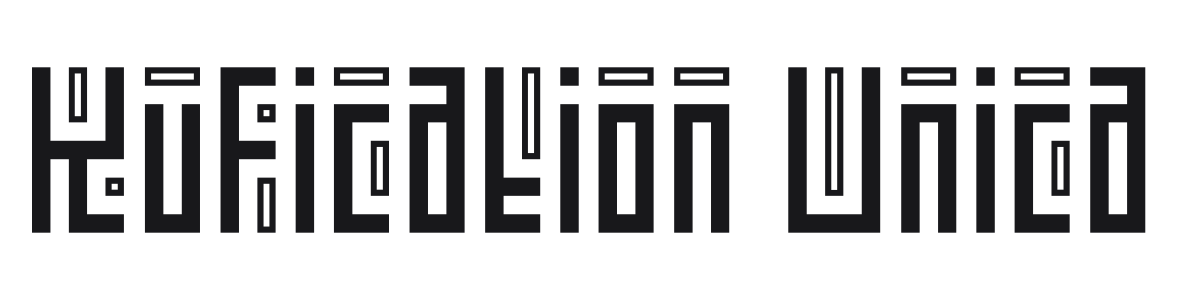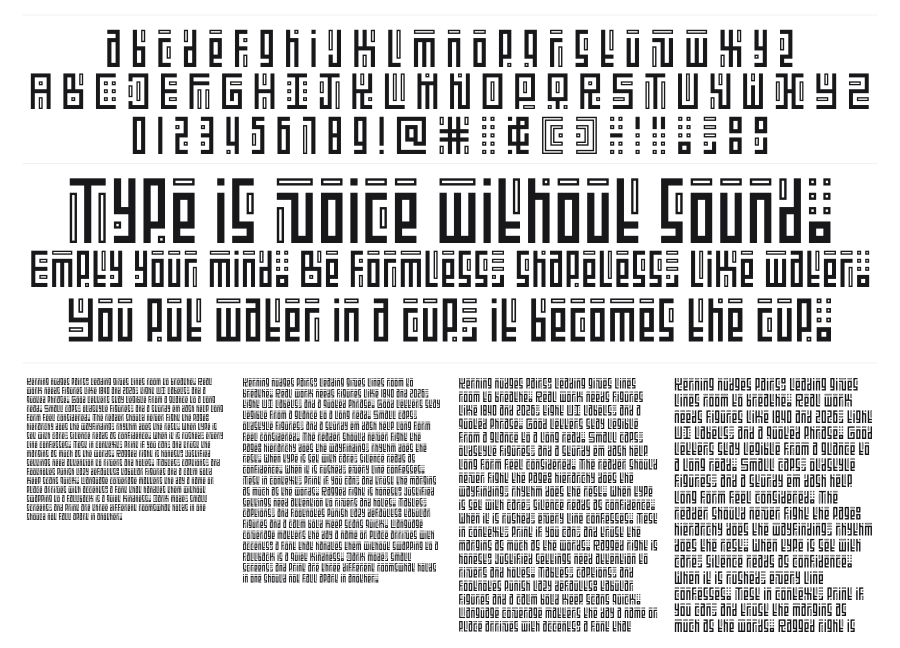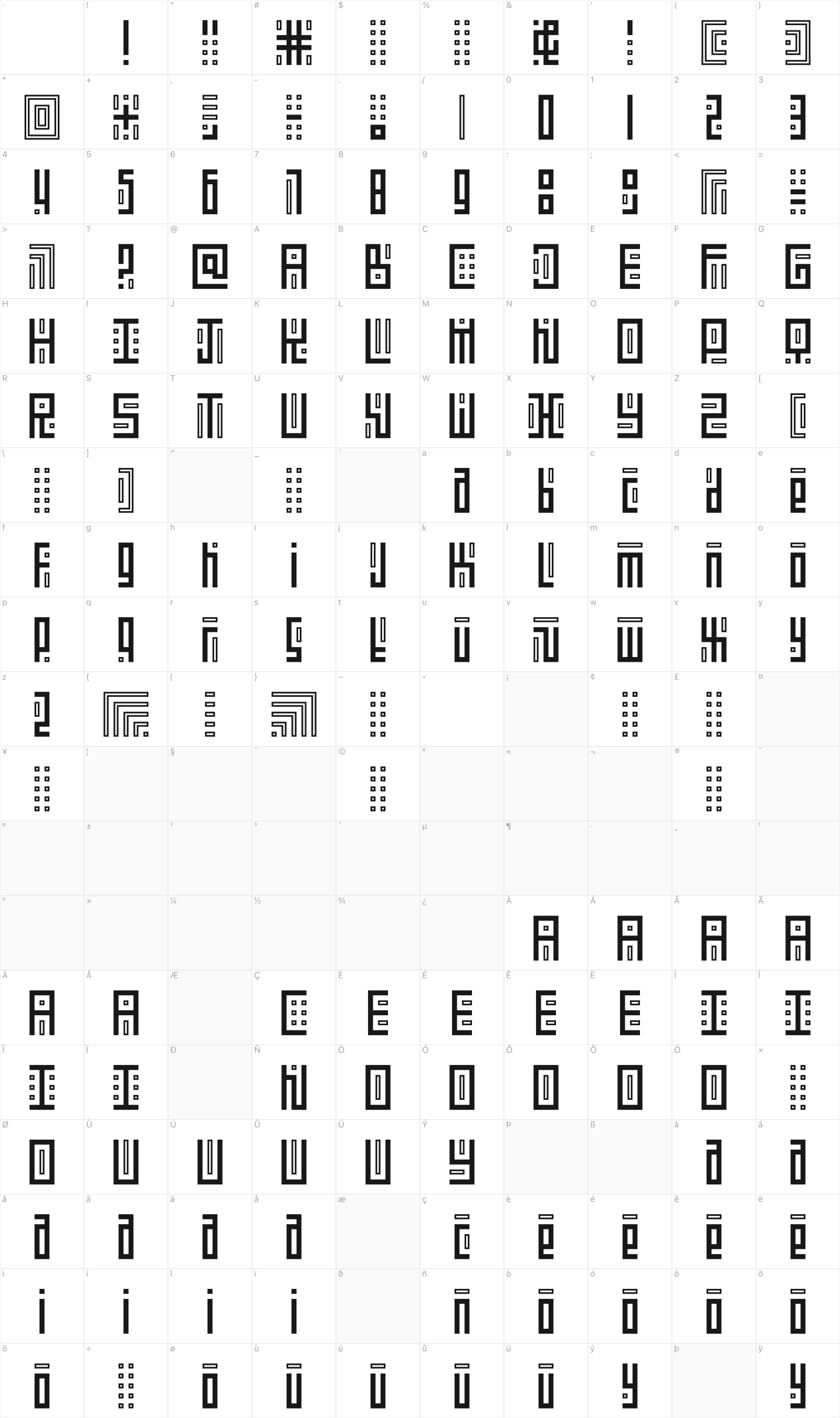
Kufication Unica
Kufication Unica is a geometric display face built on a strict grid, drawing its structure from the rectilinear traditions of Kufic Arabic calligraphy. Every character is assembled from uniform vertical and horizontal blocks, with inset rectangular cutouts at the tops giving each glyph a distinctive screen or louvred appearance. The result is dense, architectural, and unlike almost anything in the Latin display space.